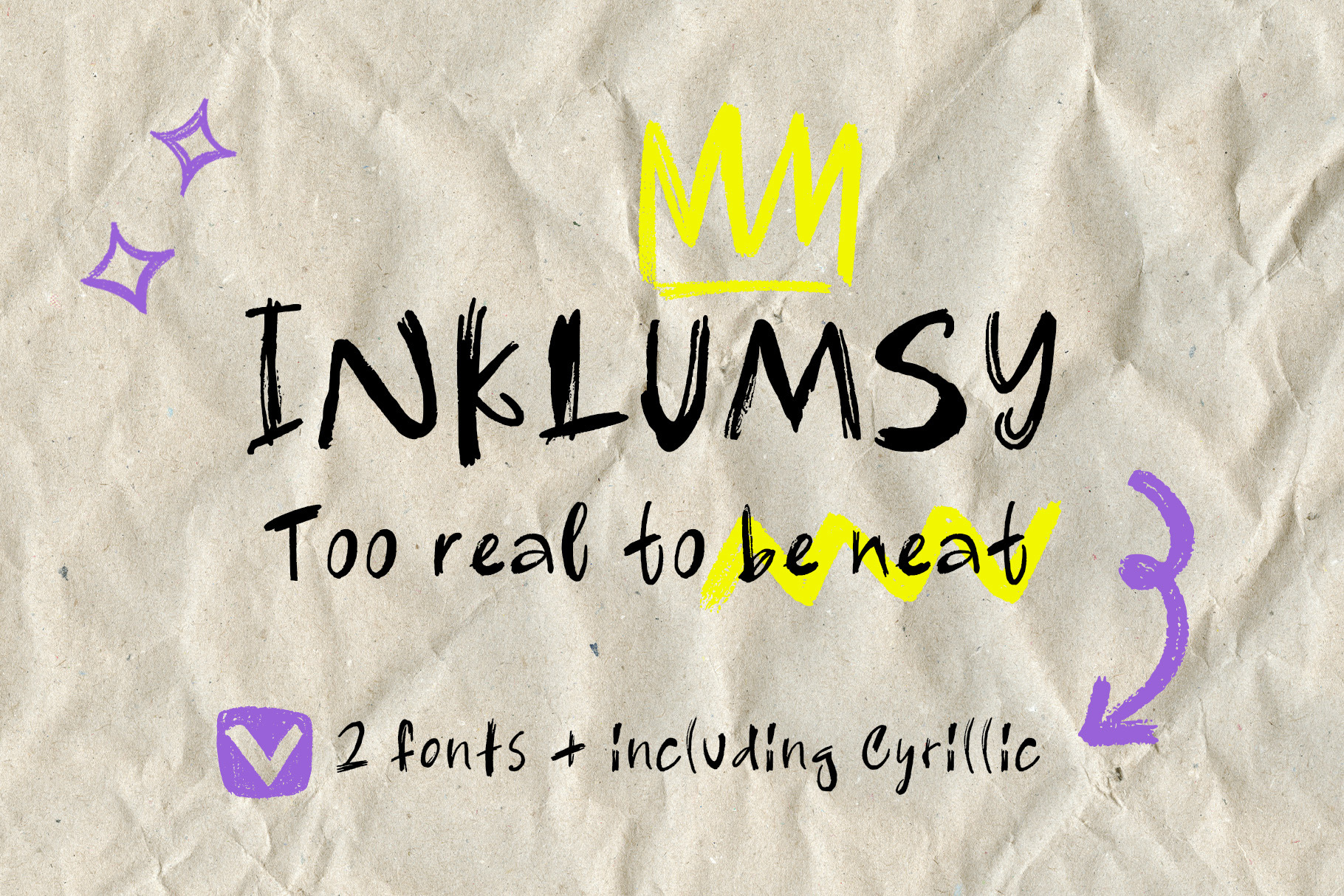
Inklumsy Handwritten Font
Inklumsy — Handwritten Font with Soul
Too real to be neat Inklumsy is a perfectly imperfect handwritten font for creators who choose authenticity over polish. It’s raw, bold and human — just like your thoughts when they first hit the page.
Whether you’re making Instagram stories, YouTube thumbnails, personal journals, or bold design statements — Inklumsy adds that messy magic that makes it feel real.
- Social media graphics (Instagram, YouTube, Reels)
- Lifestyle and travel blogs
- Journaling, scrapbooking, and DIY
- Stickers, cards, and personal branding
- Cyrillic symbols.